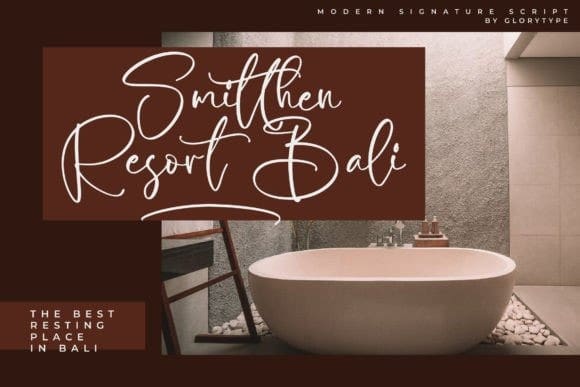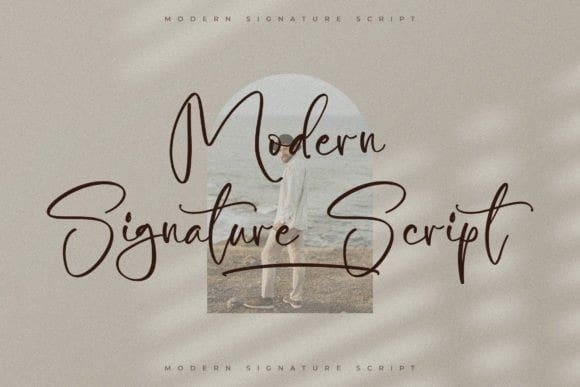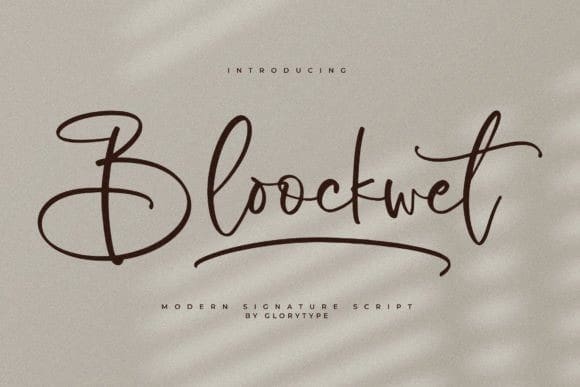
Bloockwet Script Font
Bloockwet Script Font – Modern Signature font, suitable for any projects such as logos, branding projects, homeware designs, product packaging, mugs, quotes, posters, shopping bags, t-shirts, book covers, name cards, invitation cards, greeting cards, labels, photography, watermark, special events, and all your other lovely projects that need a beautiful script taste.